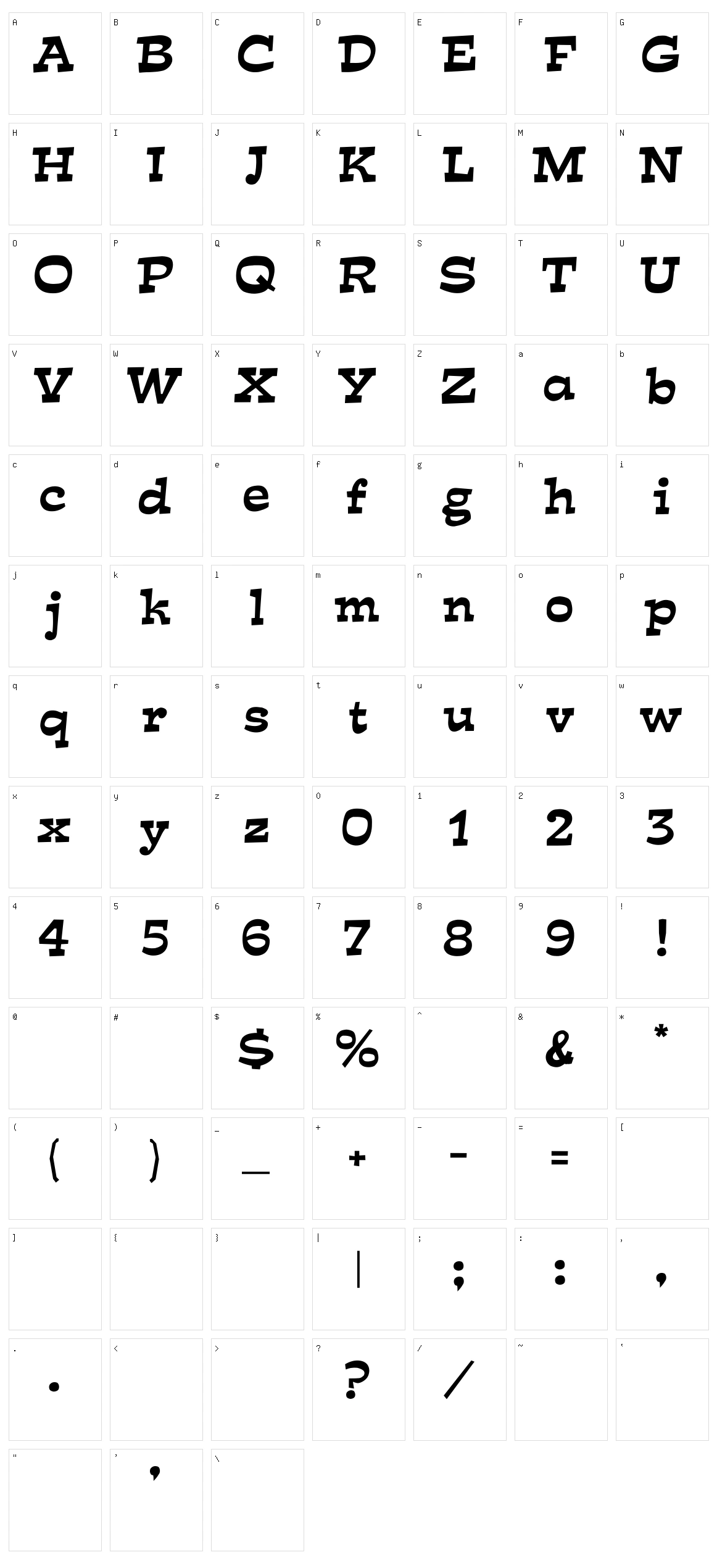
Created by Thomas E. Harvey
History of the Fonts (for those people are avoiding real work by continuing to read.)
I'm a graphic designer by profession. And I do a few other things too, in the marketing area. But in the early '90s, when most of the fonts were created, I was primarily a designer. With the projects that I was creating, I kept having the need for a new font, or an old alphabet design that had never been digitized. So, I found a way to create PostScript and Windows fonts using an earlier version of CorelDraw. Later I graduated to professional font design software.
I "created" every one of the fonts, character by character. But I didn't necessarily create the "designs" of the characters or the alphabets. Many of the designs came from old Victorian alphabet showing books. Many were completely original like DingMaps. (Well, okay, I designed that font, but the geographic shapes of states and continents did not originate with me.) None of the designs, mine or derivative, had, to my knowledge, been digitized by anyone up to that time. Many designs are still unique to my fonts.
It was fun doing them, for the most part, and I'm glad that people find benefits in the fonts. I've often told people that I believe that when I'm dead and gone, my lasting legacy will be the fonts, still able to be Googled under my name, downloaded, and used in projects all over the world. It may be a virtually anonymous legacy, but it's lasting longer than I originally expected.